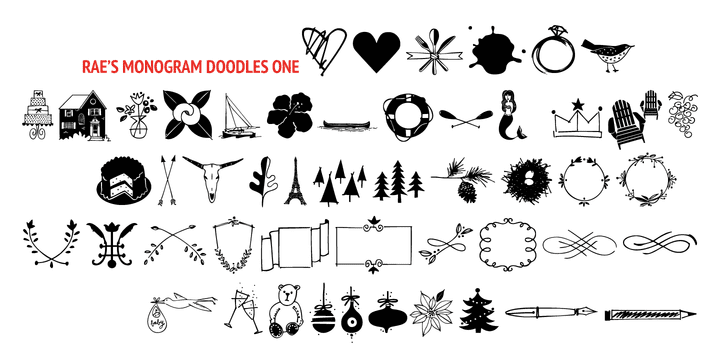
Rae's Monogram Doodles One (1 font)
Rae’s Monogram One letters are best used as the right and left letters.
You can add Rae’s Monogram Two for the middle letter. Rae’s Monogram Doodles One are 50 small illustrations to use with the monogram. If you don't see the one you want take a look at over 1,000 others in Outside the Line’s Doodle font library.
Of course just because it was planned this way doesn't mean you have use them this way. Use your imagination! You can use just one font, or two or all three.